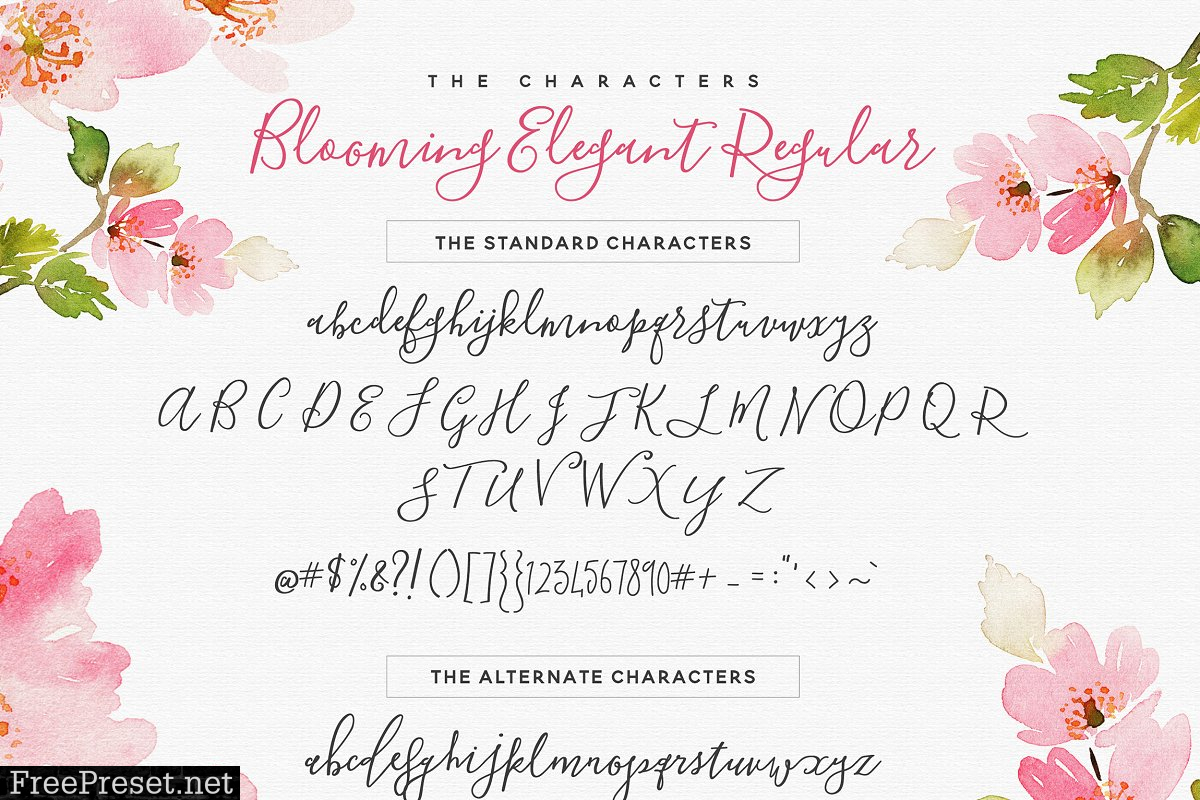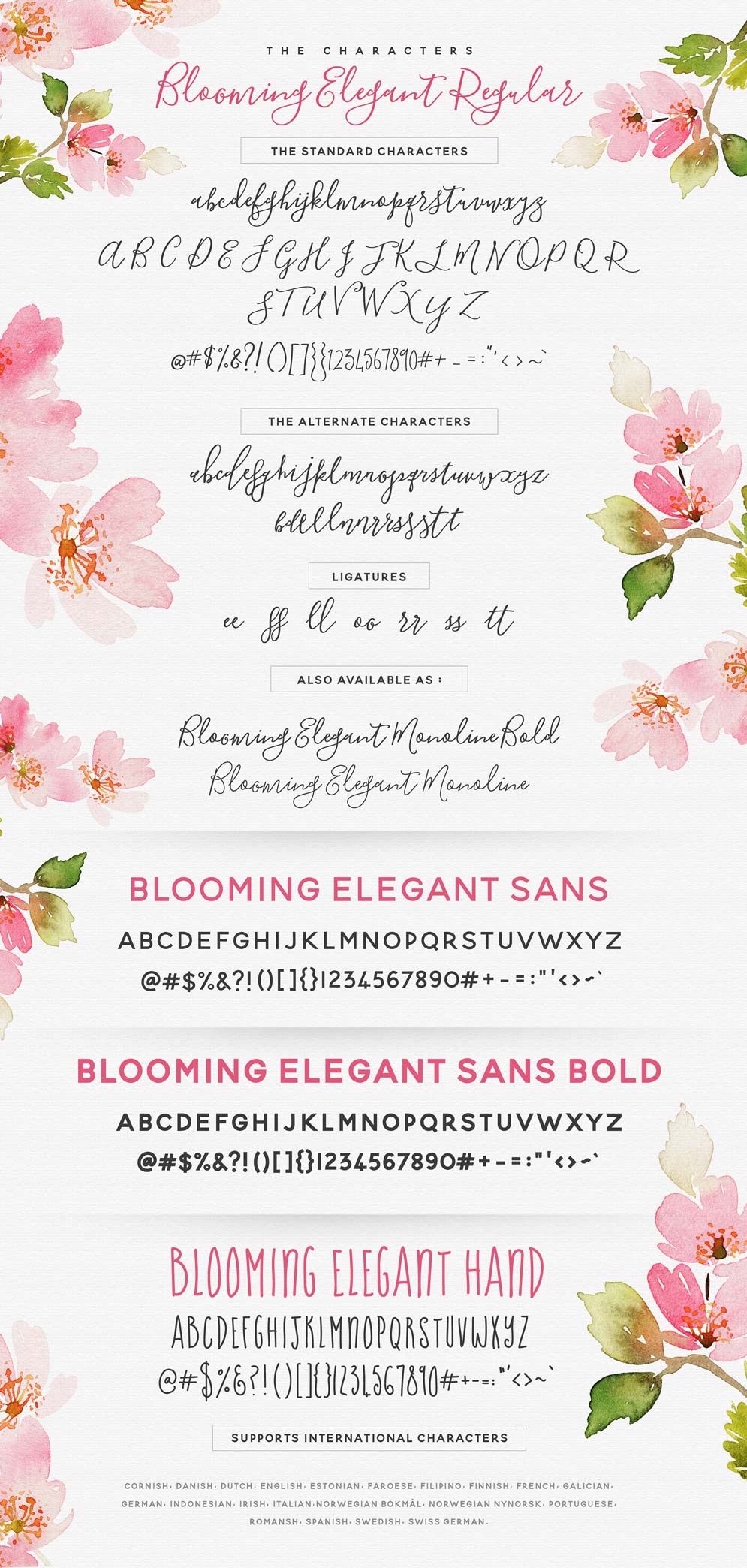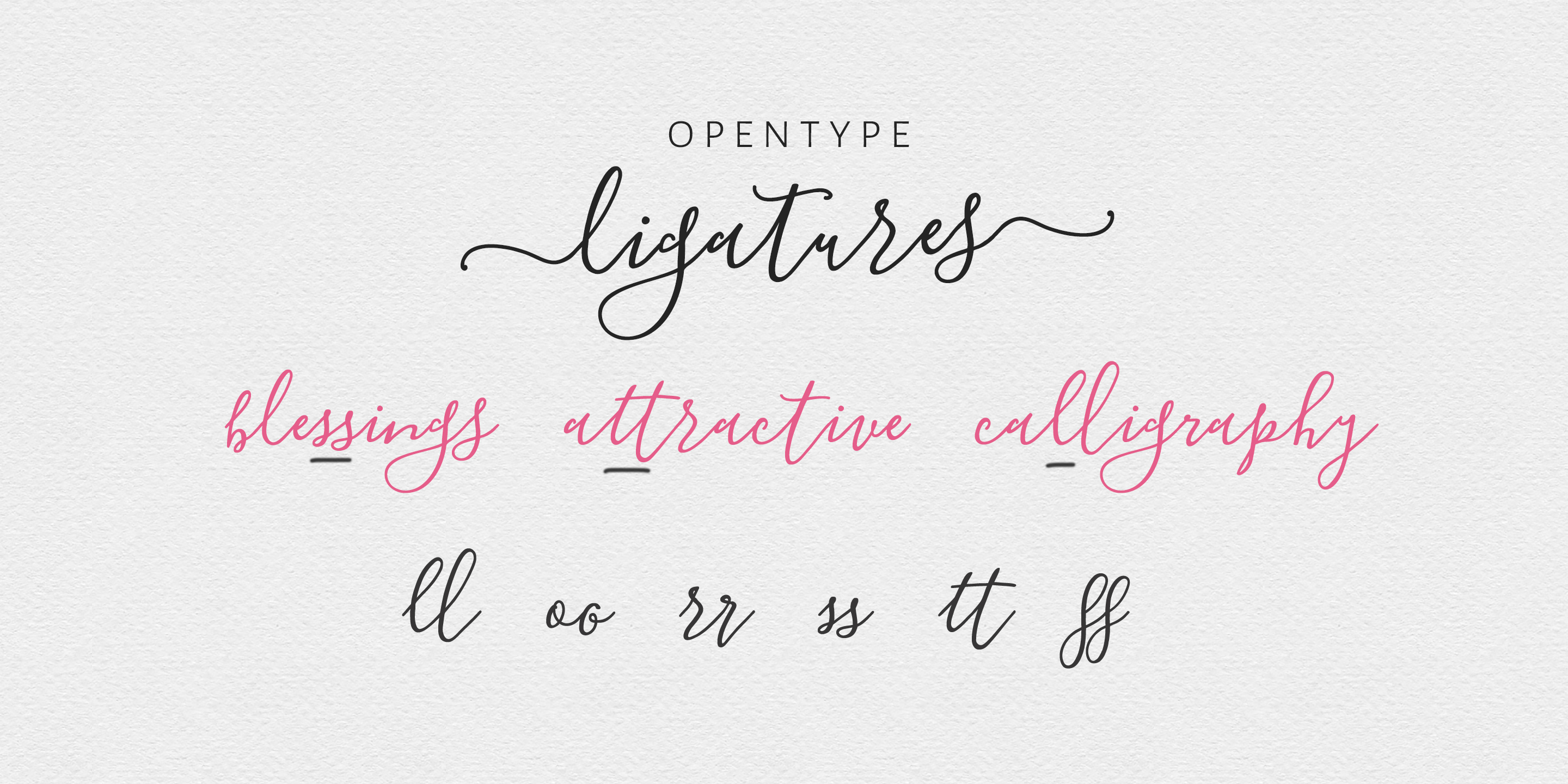
Blooming Elegant Font
Blooming Elegant Font - 1.) blooming elegant regular : An elegant yet playful script with a super flirty baseline, perfect for branding, logos,. Web blooming elegant sans bold. ← back to family page.
Web blooming elegant sans bold. ← back to family page. 1.) blooming elegant regular : An elegant yet playful script with a super flirty baseline, perfect for branding, logos,.
1.) blooming elegant regular : Web blooming elegant sans bold. An elegant yet playful script with a super flirty baseline, perfect for branding, logos,. ← back to family page.
The Blooming Elegant Font Trio Script Fonts on Creative Market
1.) blooming elegant regular : An elegant yet playful script with a super flirty baseline, perfect for branding, logos,. Web blooming elegant sans bold. ← back to family page.
Blooming Elegant Font Fontspring
An elegant yet playful script with a super flirty baseline, perfect for branding, logos,. ← back to family page. 1.) blooming elegant regular : Web blooming elegant sans bold.
The Blooming Elegant Font Trio 537891
An elegant yet playful script with a super flirty baseline, perfect for branding, logos,. ← back to family page. 1.) blooming elegant regular : Web blooming elegant sans bold.
Blooming Elegant Font Free Download
1.) blooming elegant regular : An elegant yet playful script with a super flirty baseline, perfect for branding, logos,. ← back to family page. Web blooming elegant sans bold.
Blooming Elegant Font Trio
Web blooming elegant sans bold. An elegant yet playful script with a super flirty baseline, perfect for branding, logos,. ← back to family page. 1.) blooming elegant regular :
Blooming Elegant Font Fontspring
← back to family page. Web blooming elegant sans bold. 1.) blooming elegant regular : An elegant yet playful script with a super flirty baseline, perfect for branding, logos,.
Blooming Elegant Font Fontspring
← back to family page. Web blooming elegant sans bold. An elegant yet playful script with a super flirty baseline, perfect for branding, logos,. 1.) blooming elegant regular :
Blooming Elegant Font Fontspring
Web blooming elegant sans bold. 1.) blooming elegant regular : An elegant yet playful script with a super flirty baseline, perfect for branding, logos,. ← back to family page.
Blooming Elegant Font Fontspring
Web blooming elegant sans bold. An elegant yet playful script with a super flirty baseline, perfect for branding, logos,. 1.) blooming elegant regular : ← back to family page.
Web Blooming Elegant Sans Bold.
1.) blooming elegant regular : ← back to family page. An elegant yet playful script with a super flirty baseline, perfect for branding, logos,.